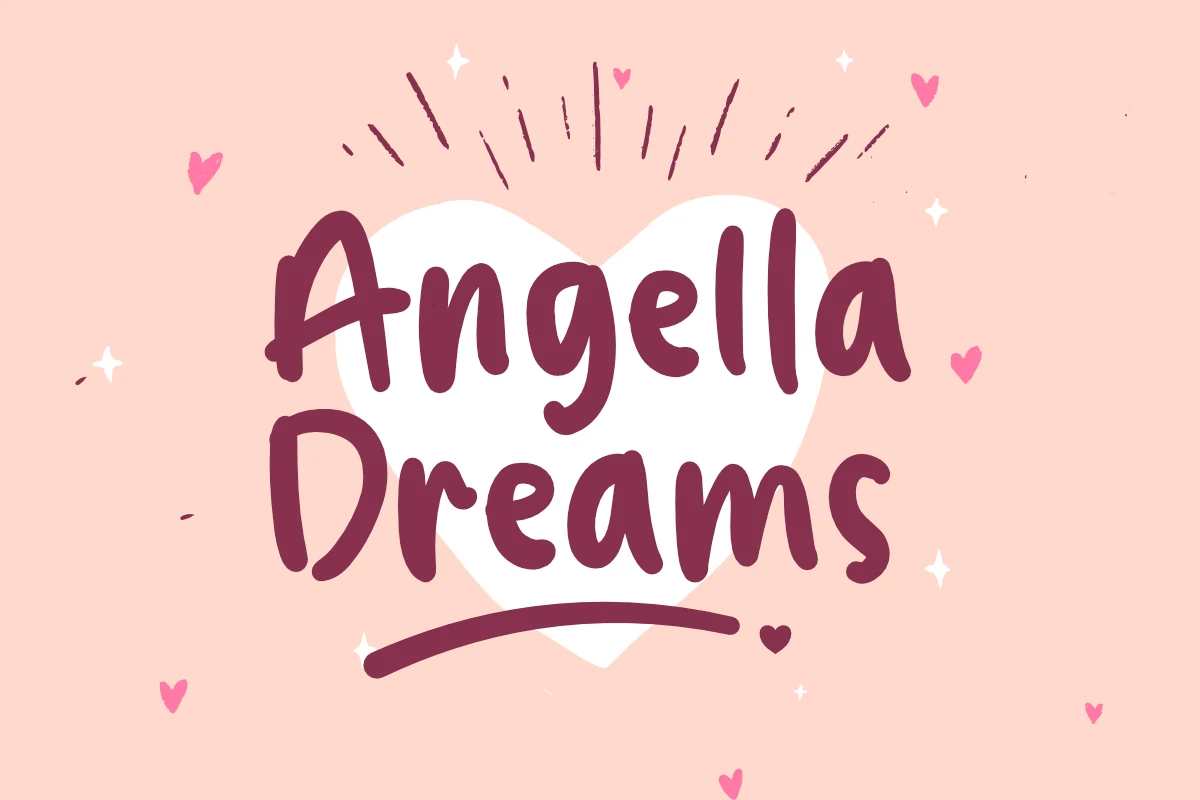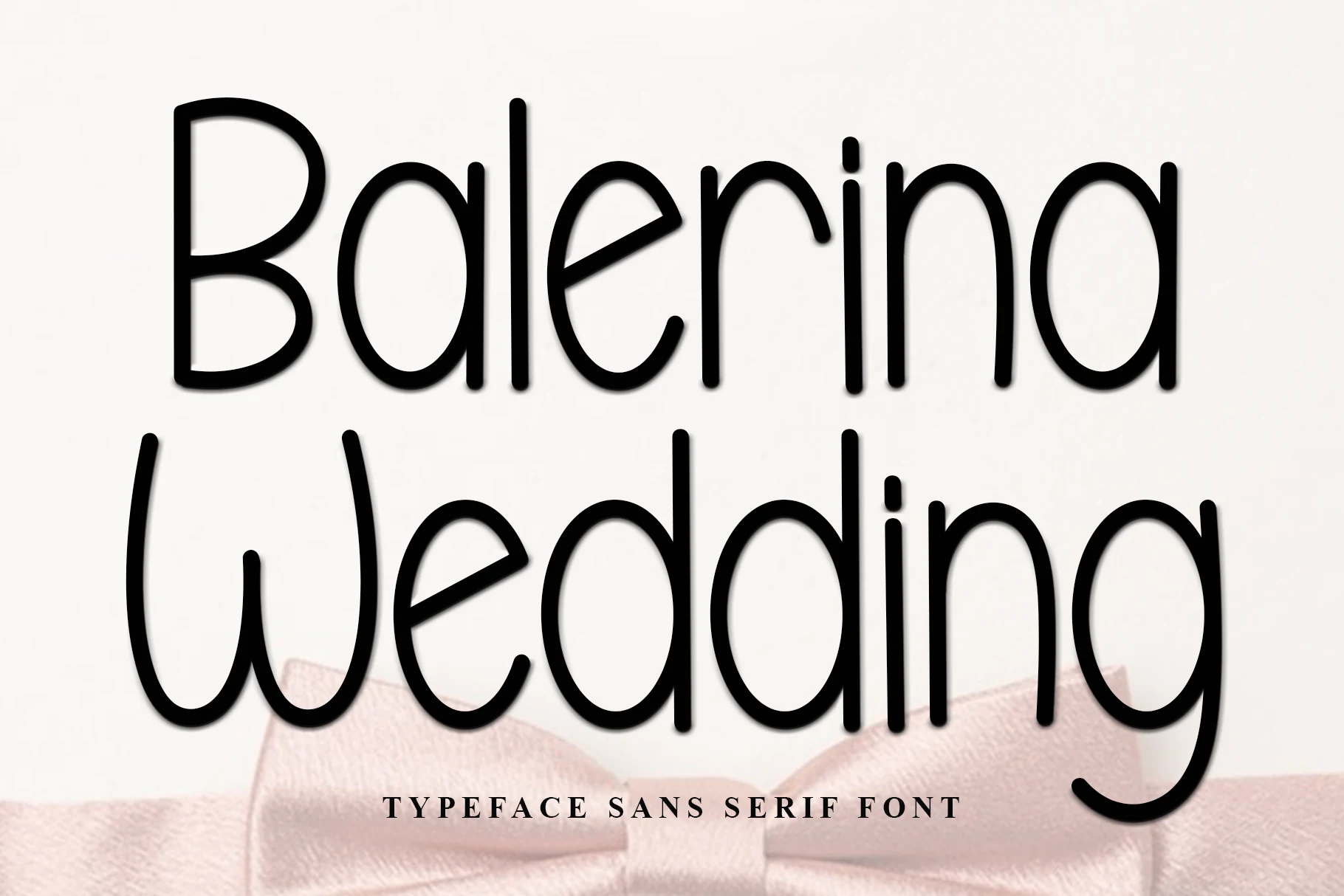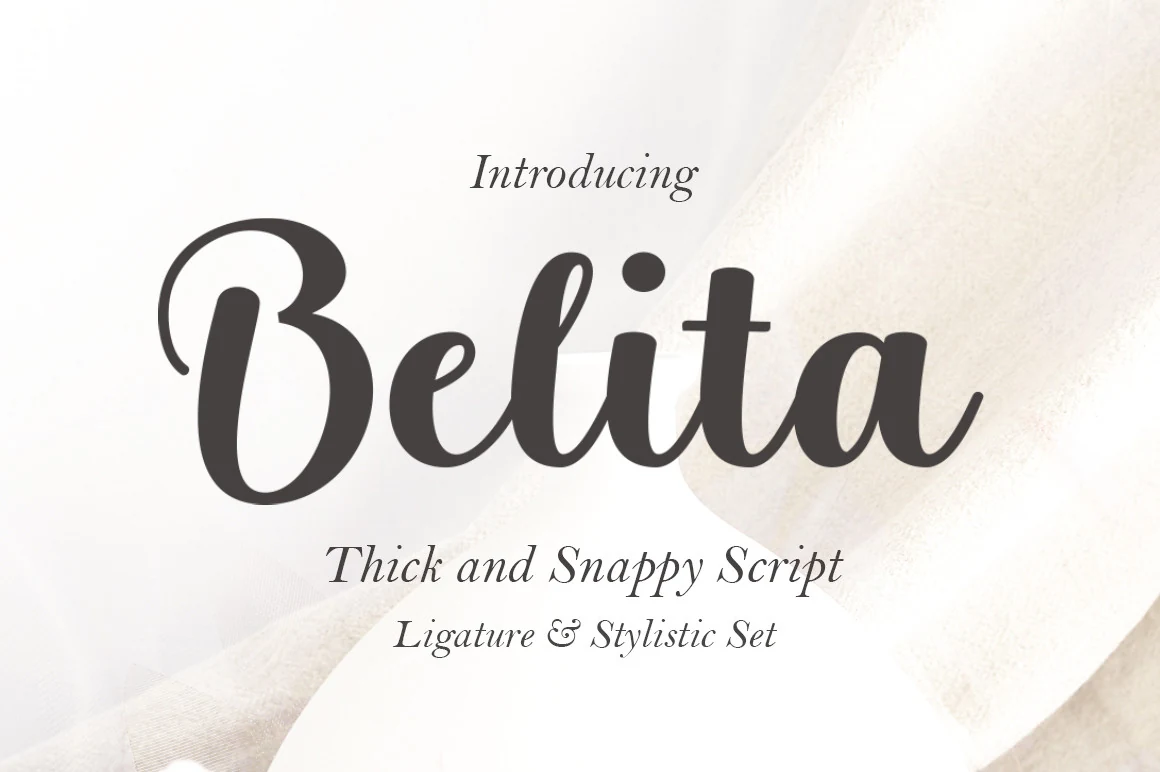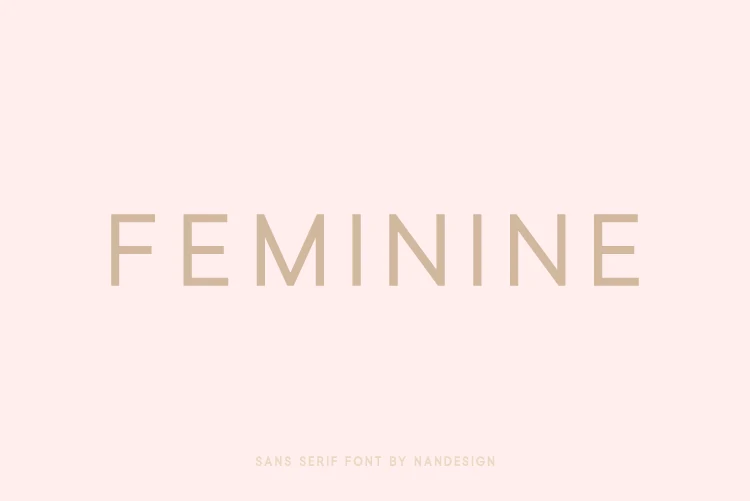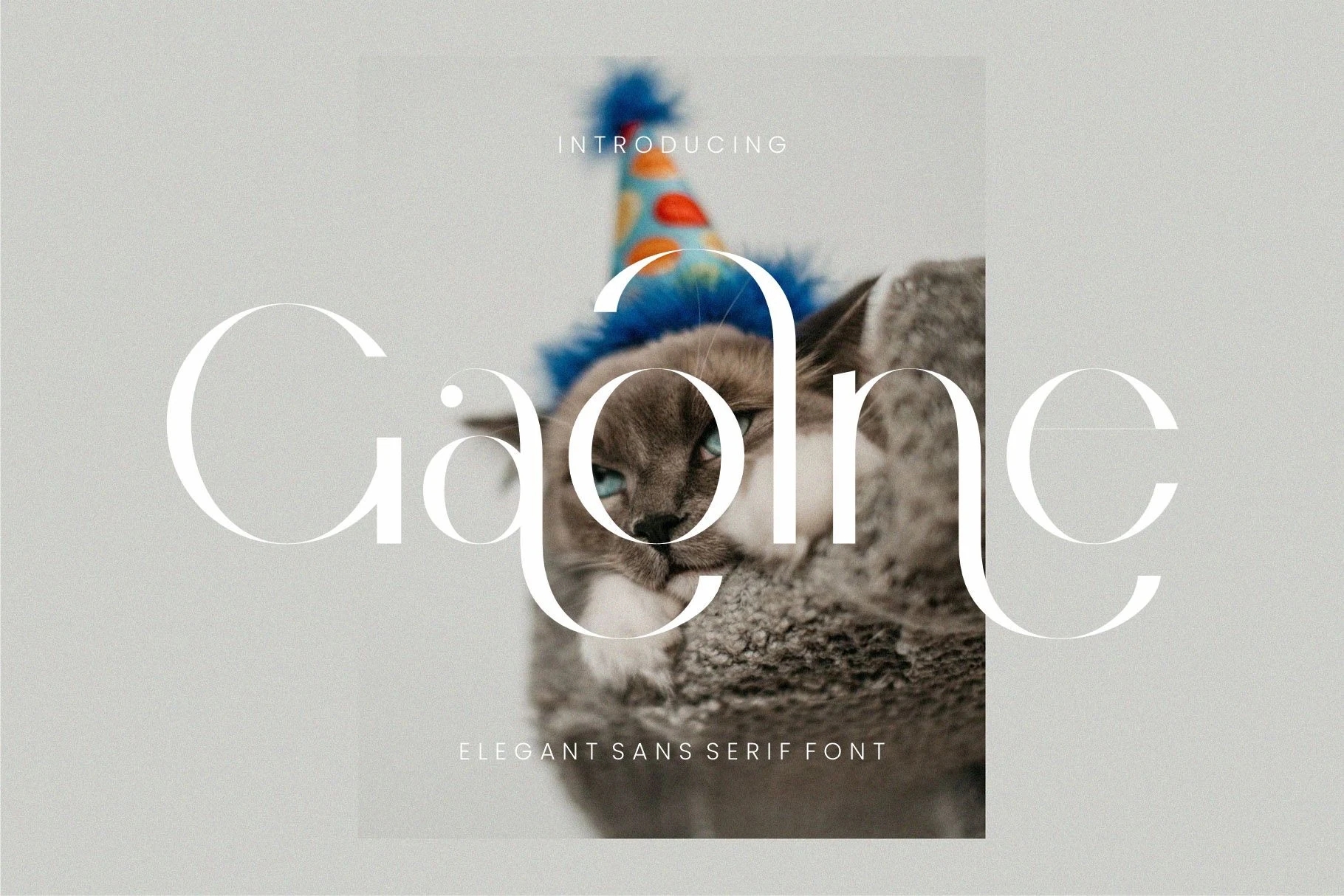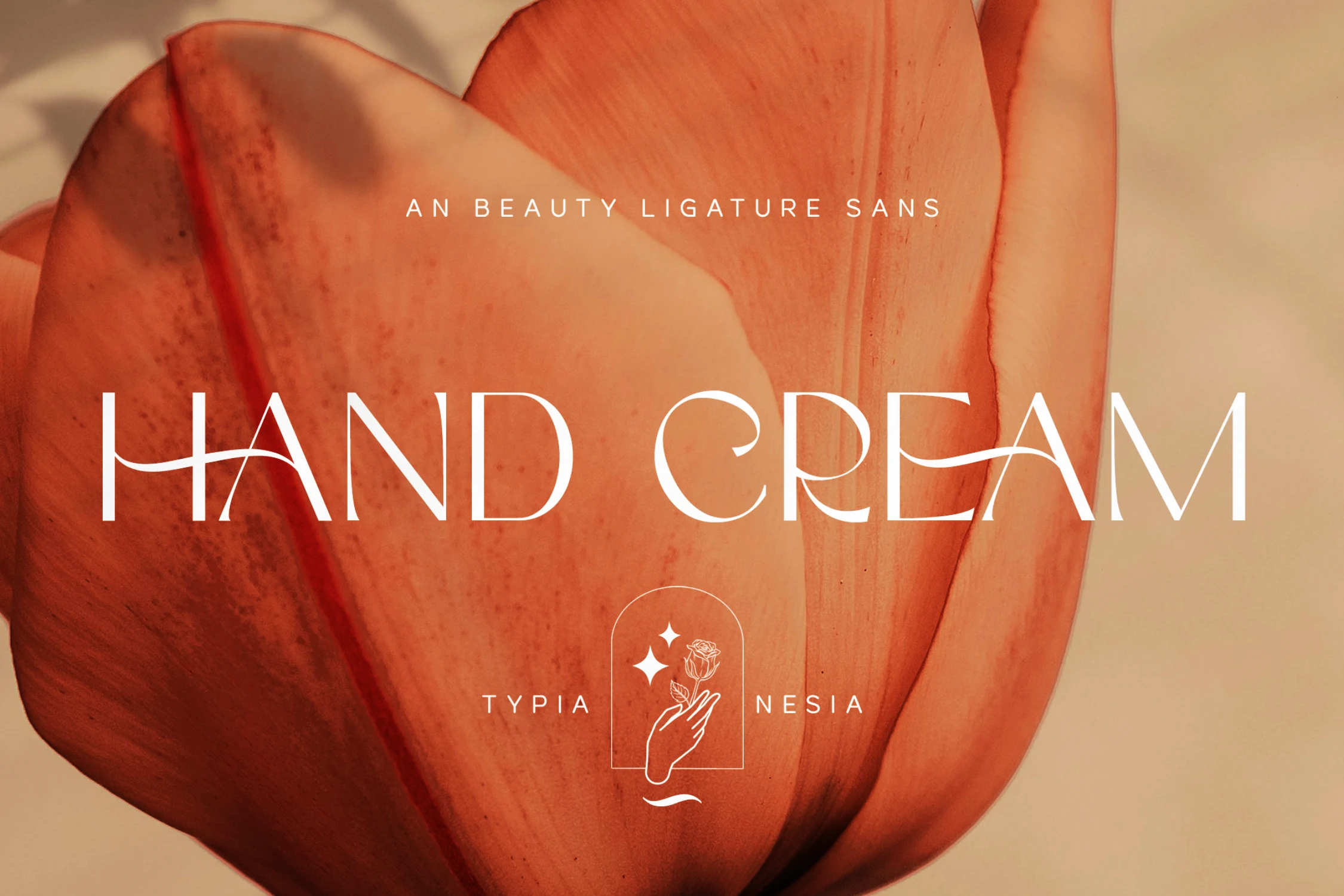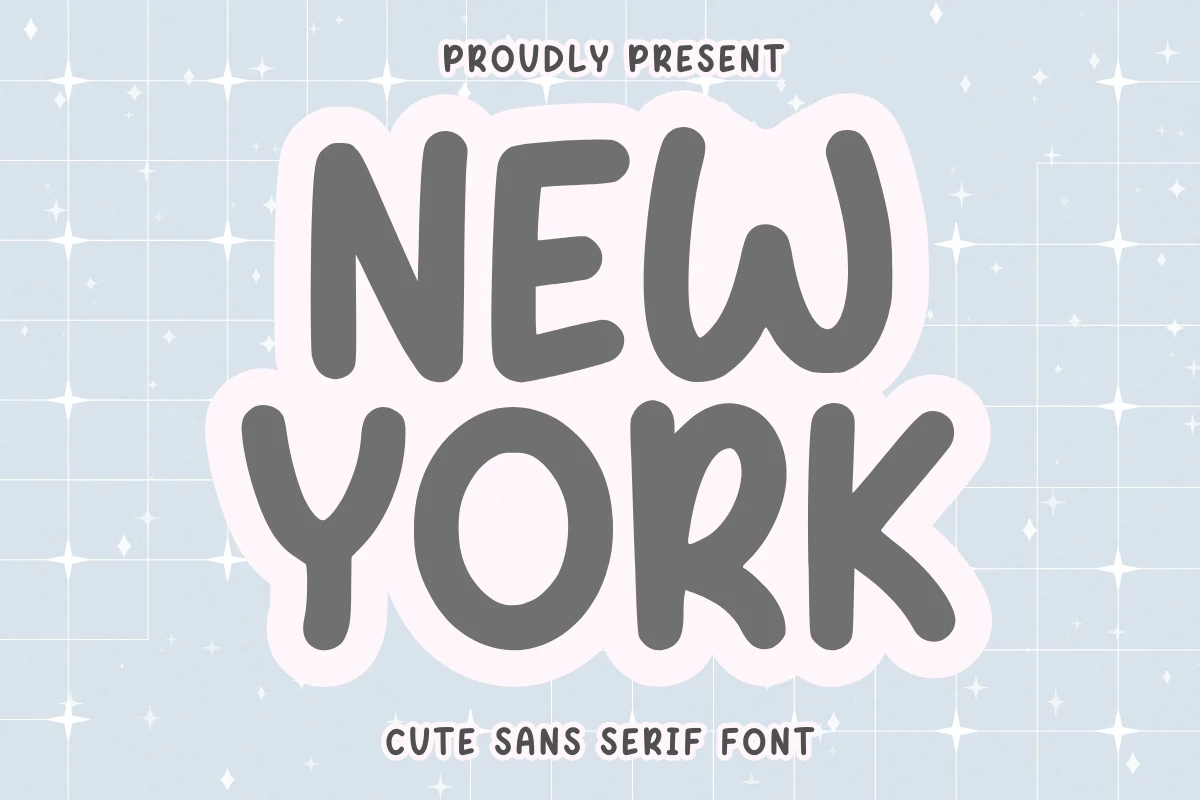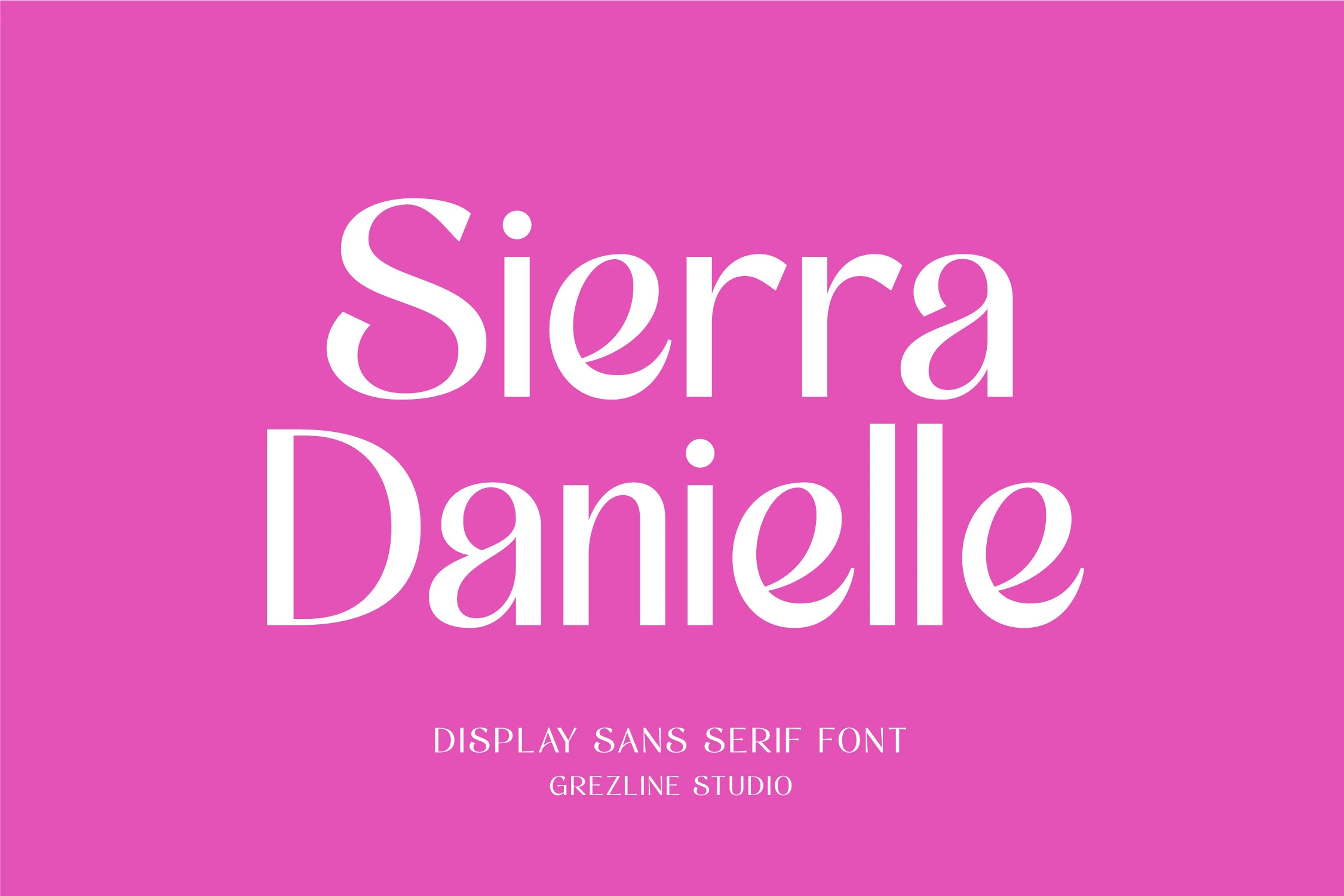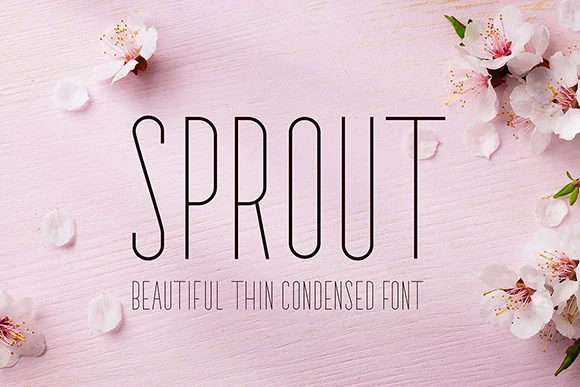
10 Best Feminine Fonts for Elegant Branding in 2026
Feminine Fonts are a strong choice for designs that need softness, elegance, charm, or a more personal visual tone. This collection brings together 10 stylish fonts for logos, beauty branding, invitations, packaging, social media graphics, wedding designs, and other creative projects.
From delicate condensed sans serifs to bold scripts and cute rounded display fonts, these options cover different feminine styles without feeling repetitive. Each font is available on Creative Fabrica, making it easier to find a polished typeface for your next design.
Sprout Font
Sprout Font thin condensed sans lettering with delicate tall shapes
Sprout Font uses very tall, narrow sans serif letters with a thin monoline build and softly rounded movement through the curves. Its delicate vertical rhythm gives titles a quiet, airy look, which fits Feminine Fonts collections where the typography needs to feel refined without becoming decorative.
The condensed proportions make it strongest in short names, headings, invitation wording, and website accents. Keep contrast high and avoid crowding the tracking too tightly; the slim strokes need clean space around them so the elegant shape stays readable.
Sweet Sugar Font
Sweet Sugar Font preview with chunky rounded pink letters and a white outline
Sweet Sugar Font has thick rounded letters, soft curves, and a slightly bouncy rhythm that makes the words feel friendly and approachable. The wide, chunky shapes give it strong display energy, so it fits Feminine Fonts roundups that lean cute rather than delicate.
It works best in short phrases, branding callouts, invitation titles, and social graphics where you want immediate warmth. Keep the text brief and let the bold shapes do the work; tighter layouts can handle it well, but longer lines will start to feel heavy and crowded.
Angella Dreams Font
Angella Dreams Font hand-drawn rounded lettering with playful thick strokes
Angella Dreams Font has a hand-drawn look with thick rounded strokes, loose curves, and an uneven baseline that keeps the lettering casual. Its soft marker-like shapes bring a playful side to Feminine Fonts, especially when the design needs personality rather than polish.
The weight gives short quotes, magazine accents, and brand names strong visibility, but the irregular shapes work better in compact wording than long paragraphs. Pair it with cleaner supporting type and keep enough contrast around the letters so the chunky forms stay clear.
New York Font
New York Font preview with chunky rounded sans serif letters and a soft sticker-style outline
New York Font has chunky rounded sans serif letters, soft irregular curves, and a hand-drawn bounce that makes the words feel instantly cheerful. The thick strokes and open shapes keep it easy to read, giving it the kind of friendly personality that suits Feminine Fonts with a cute, casual slant.
Its playful weight works especially well for stickers, short quotes, planner headings, and T-shirt phrases where the lettering needs to stand on its own. Try it in compact layouts or stacked lines, and pair it with simpler supporting text so the quirky rhythm stays clear instead of crowded.
Balerina Wedding Font
Balerina Wedding Font preview with soft rounded sans serif lettering and graceful curves
Balerina Wedding Font has a clean rounded sans serif structure with long vertical strokes, open counters, and smooth curves that feel soft without turning decorative. Its graceful proportions give Feminine Fonts a polished option for designs that need warmth, clarity, and a bridal tone.
The letterforms stay readable in names, invitation titles, simple logos, and baby shower card headings, especially when the layout leaves enough white space around the taller shapes. Use moderate tracking rather than tight spacing so the rounded strokes and descenders keep their calm rhythm.
Belita Font
Belita Font preview with bold flowing script lettering for feminine branding
Belita Font is a bold script with rounded strokes, smooth joins, and a generous opening flourish that gives the wordmark immediate presence. The lettering feels polished but soft, making it a strong option in Feminine Fonts when you want something more expressive than a plain signature look.
Its thick connected forms read well on branding, invitation names, labels, and packaging, especially when the main word gets room to stand apart from the supporting copy. Keep line spacing comfortable and pair it with a restrained serif or sans so the curves stay crisp instead of visually crowding the layout.
Feminine Font
Feminine Font preview with thin uppercase sans serif letters and wide spacing
Feminine Font is a light uppercase sans serif with clean straight stems, soft geometric proportions, and generous letter spacing. Its quiet structure gives Feminine Fonts a restrained, modern option where the mood comes from spacing and proportion rather than ornament.
The right Feminine Fonts can change the tone of a project quickly, whether you need something elegant, romantic, playful, minimal, or premium. Use these fonts for branding, logos, invitations, packaging, social media posts, wedding designs, and other layouts where typography needs to feel intentional.